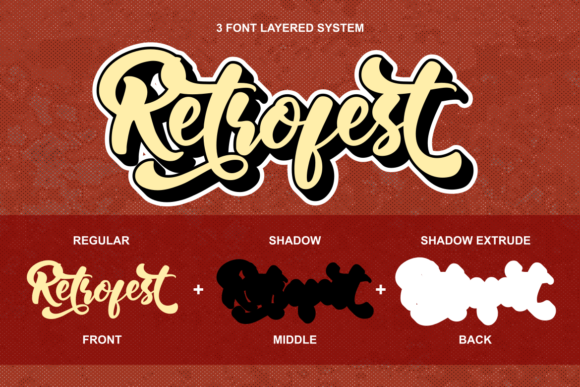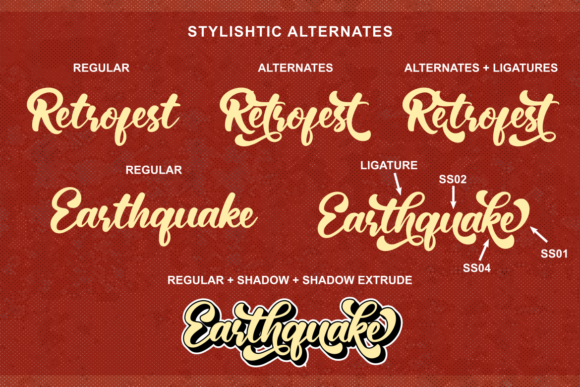
Retrofest Font
db-ku.com - Script & Handwritten -- Retrofest is a carefully crafted handwritten font with a distinguished retro style. Get inspired by its old-timey charm!